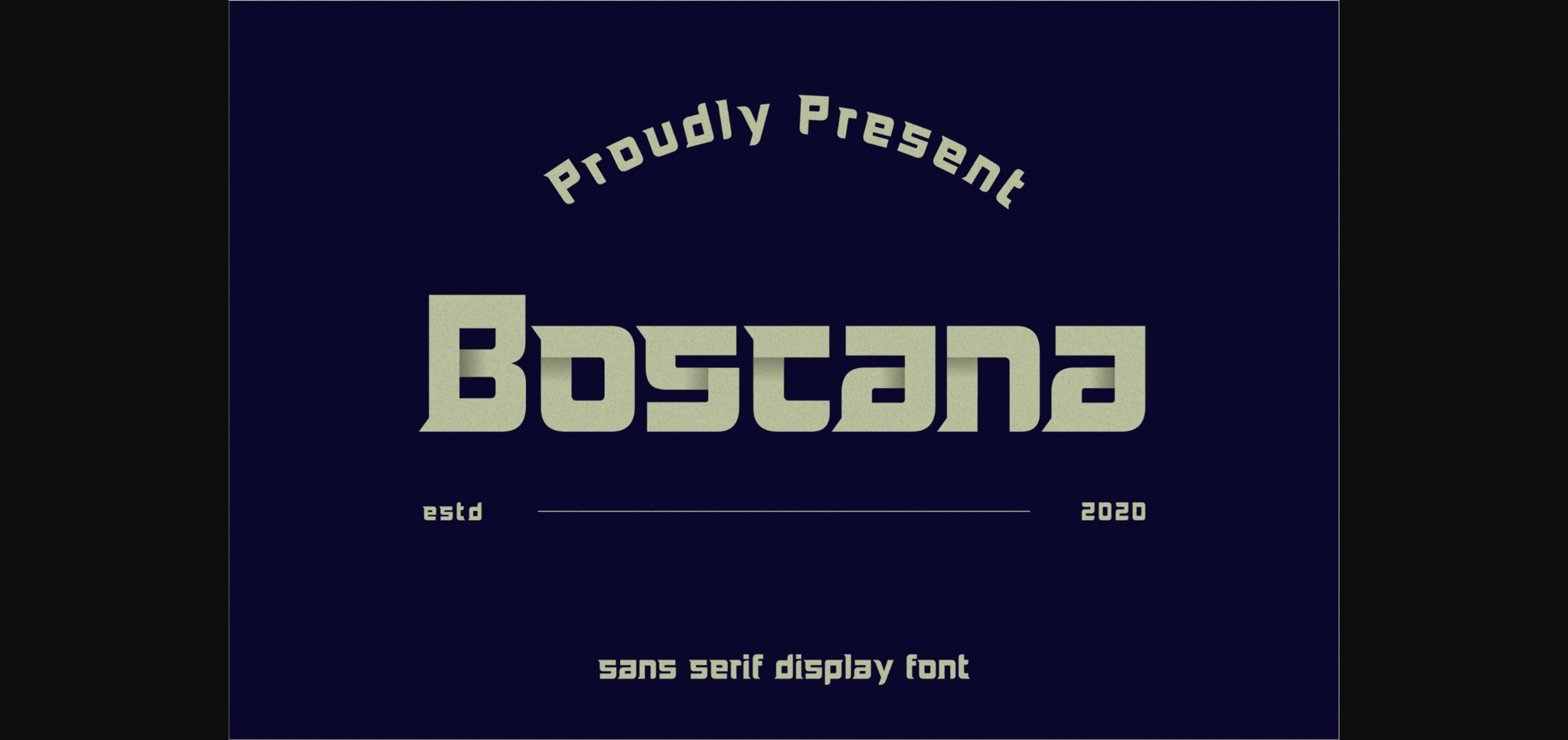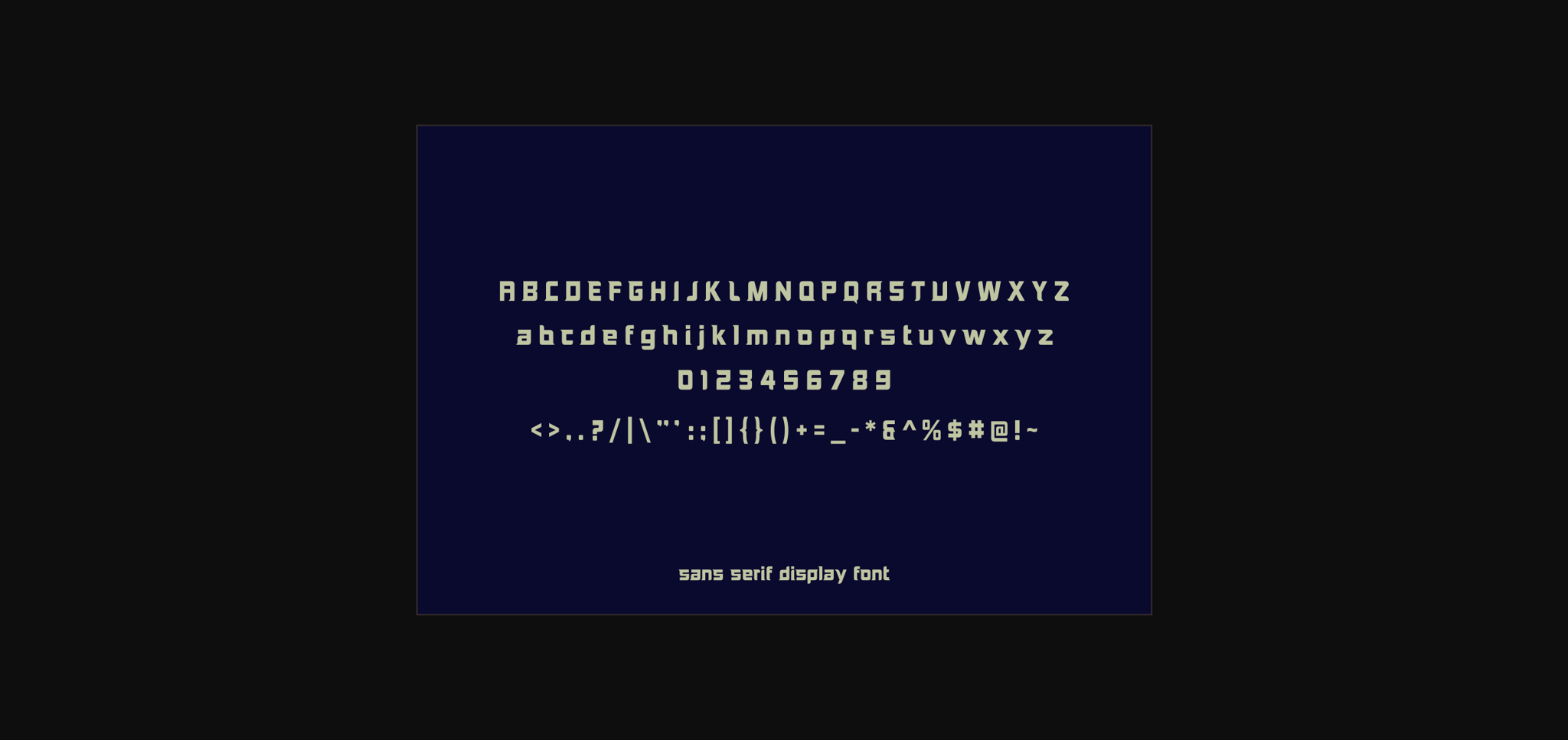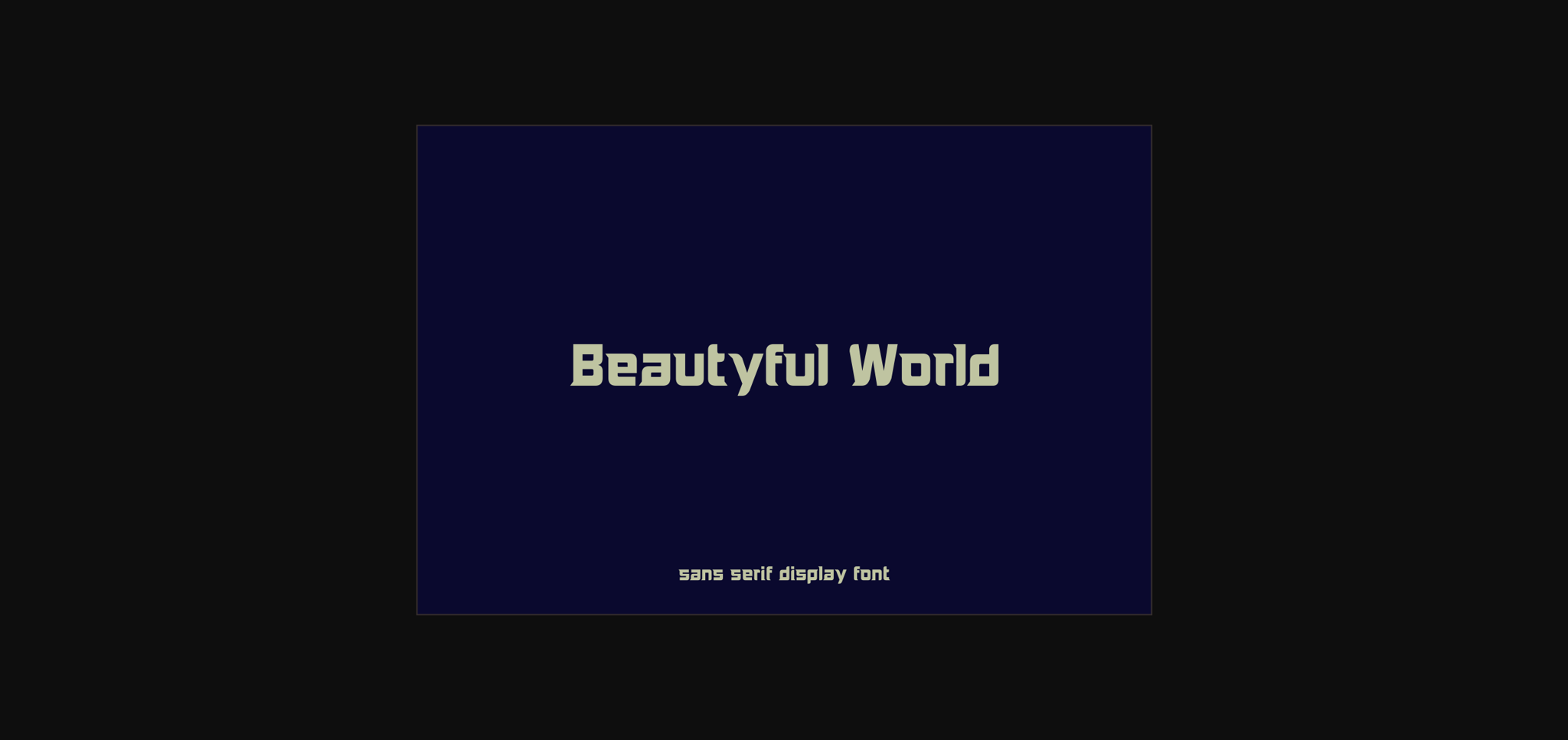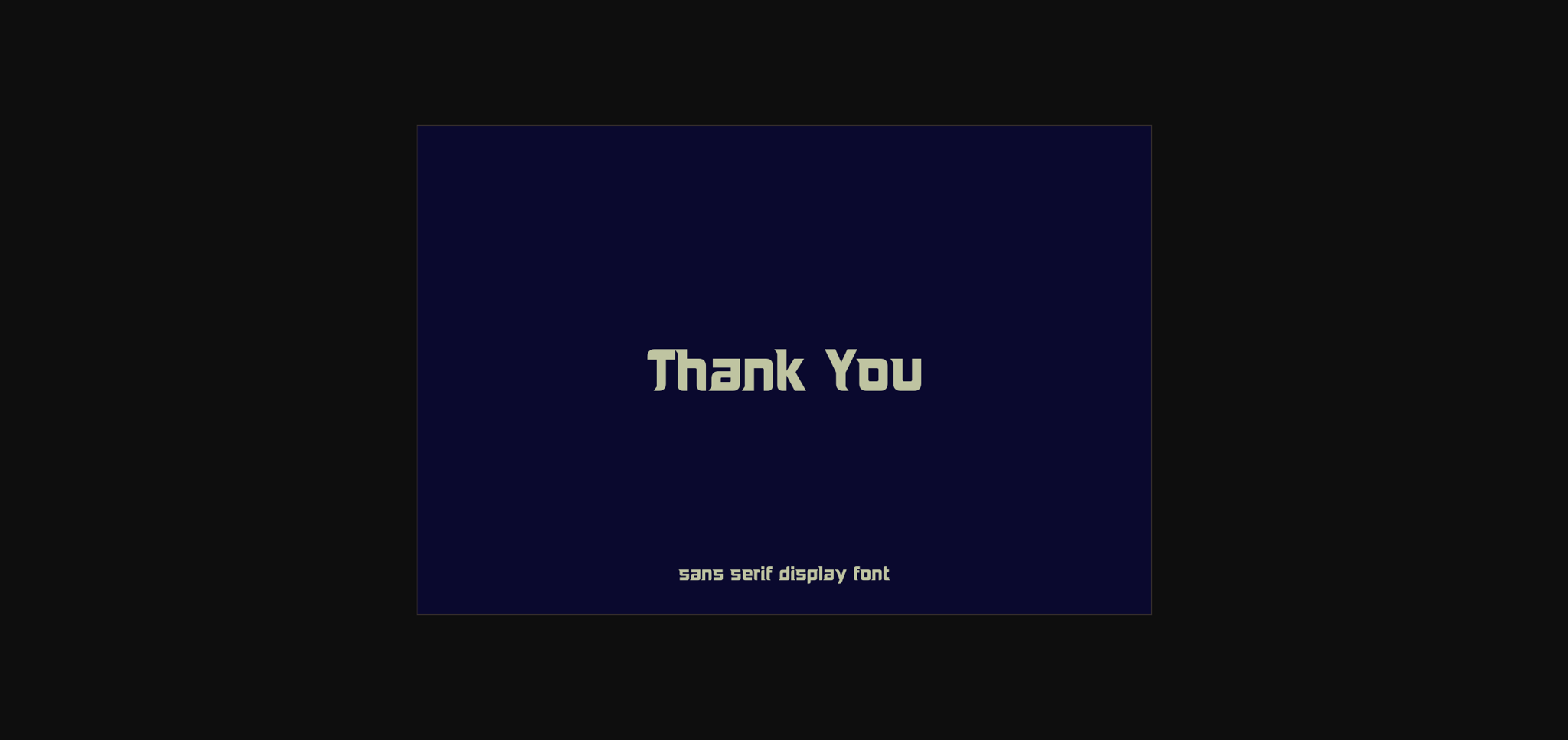
Boscano Font
About Boscano Font
Boscano font – Modern Font is a bold and authentic display font. The font is suitable for any branding project like logo, t-shirt printing, esport, and many more. outstanding in a wide range of contexts.